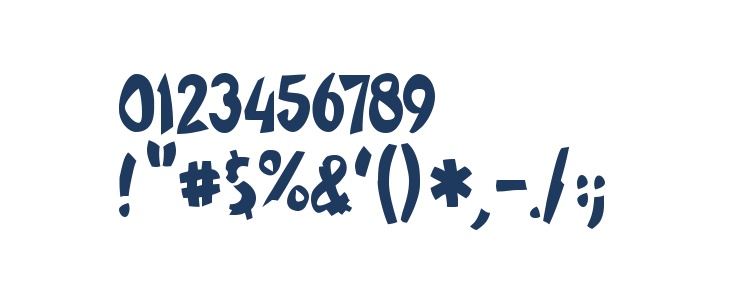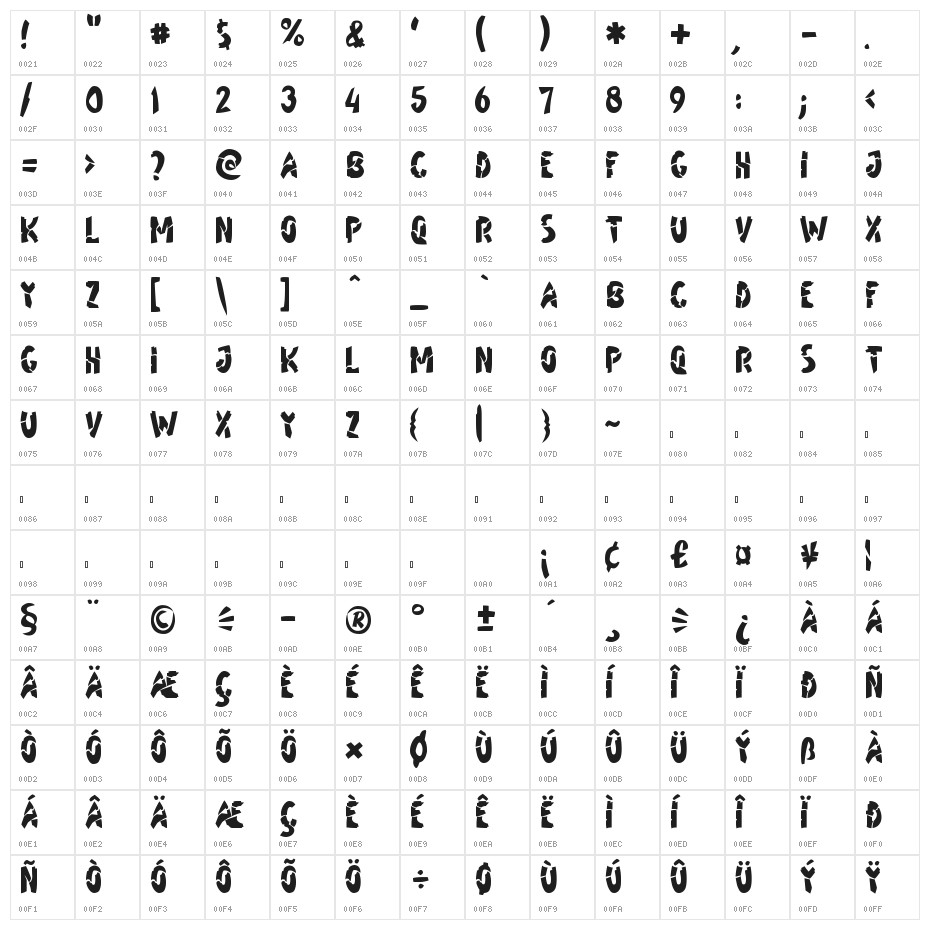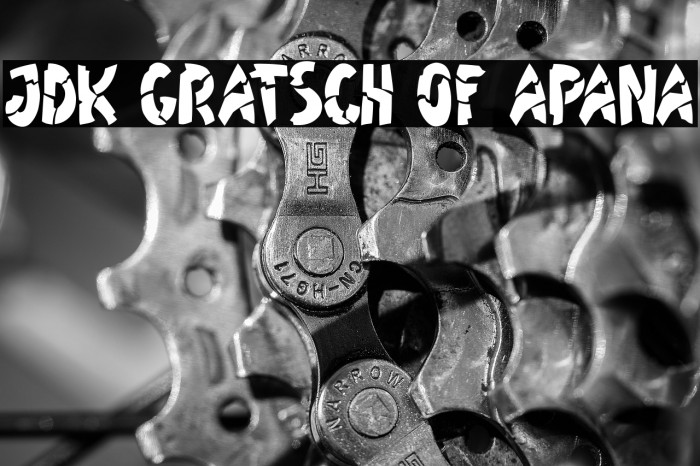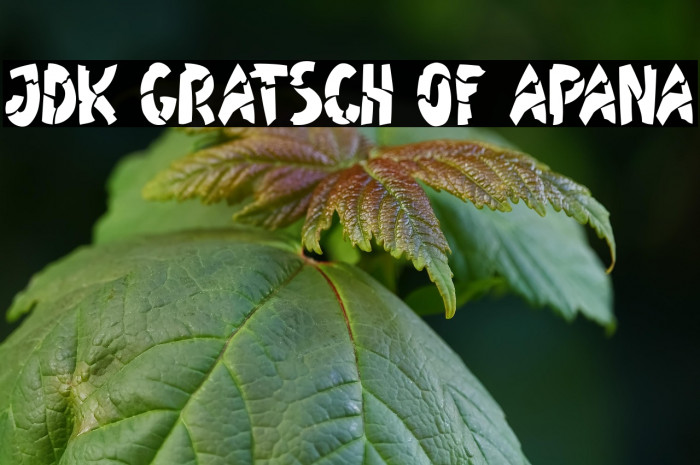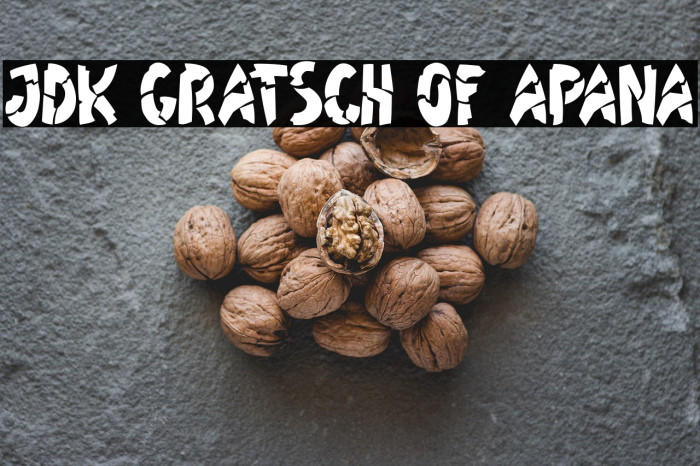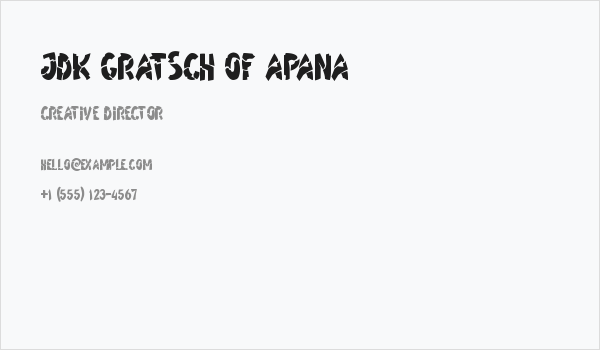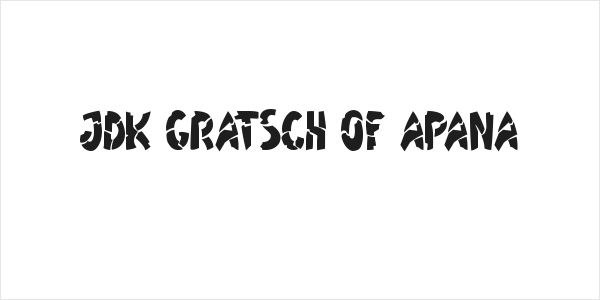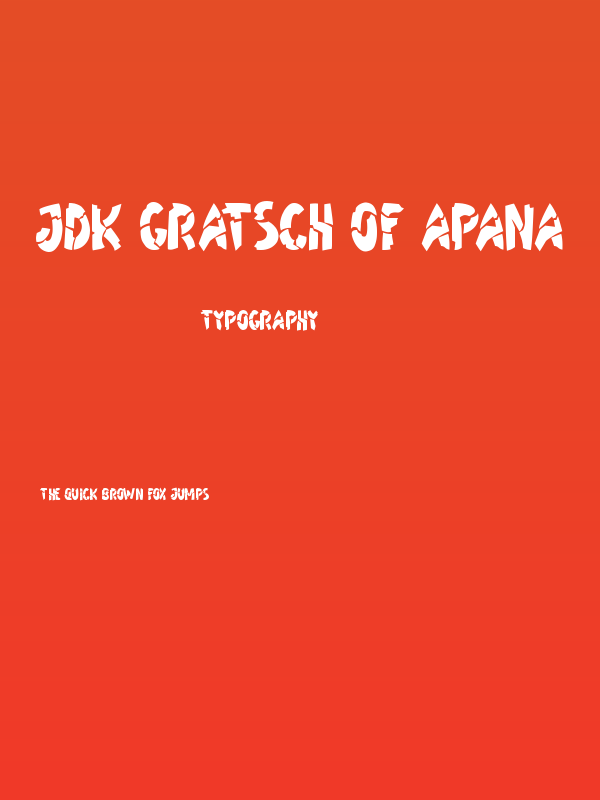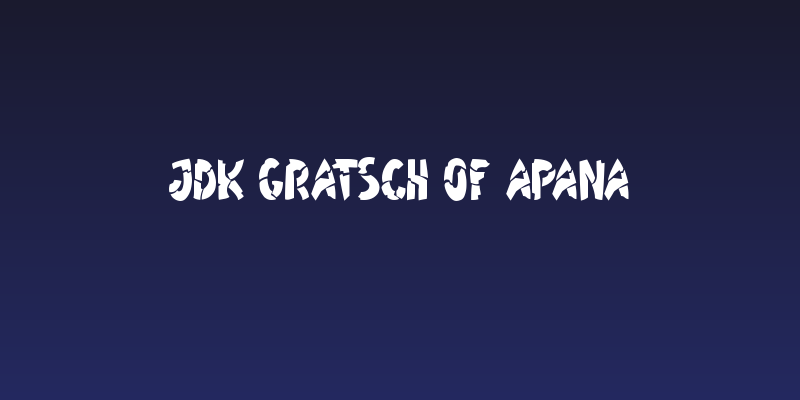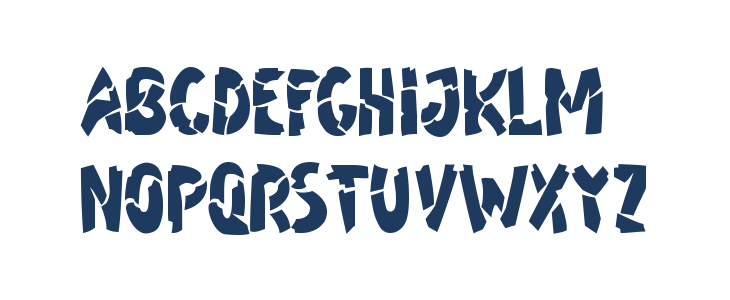
JDK Gratsch of Apana Font
JDK Gratsch of Apana Description
This font features a bold and dynamic design with a distinctly jagged and fragmented appearance. Each character is crafted with irregular edges and a playful, almost chaotic style that gives it a unique and eye-catching look. The font maintains a consistent thickness throughout, contributing to its bold presence. The uppercase and lowercase letters share a similar aesthetic, ensuring uniformity across different text cases. Numbers and special characters are designed to match the font's overall theme, making it versatile for various creative applications. Its striking appearance makes it ideal for projects that require a strong visual impact.
| Proposed Projects | Ideal for posters, album covers, graffiti art, and branding that requires a bold statement. |